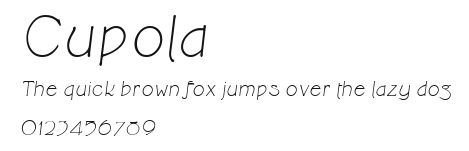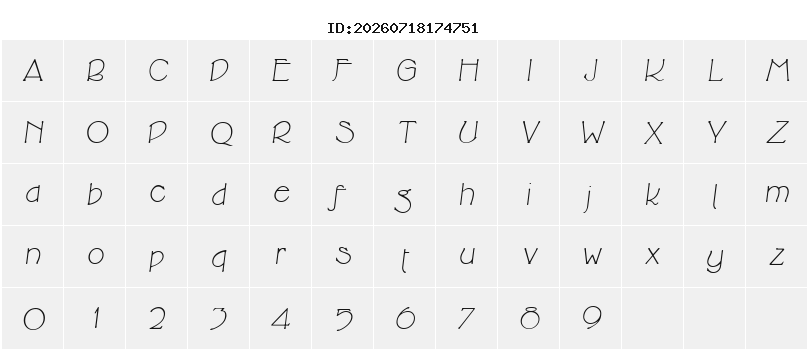
Cupola Preview
• Font Name: Cupola
• Font ID: Macromedia Fontographer 4.1.4 Cupola Italic
• Full Font Name: Cupola Italic
• PostScript Name: CupolaItalic
About Cupola.ttf
Cupola.ttf is a modern, elegant sans-serif font designed for ultimate readability and visual harmony. Perfect for branding, headlines, web design, and print materials.